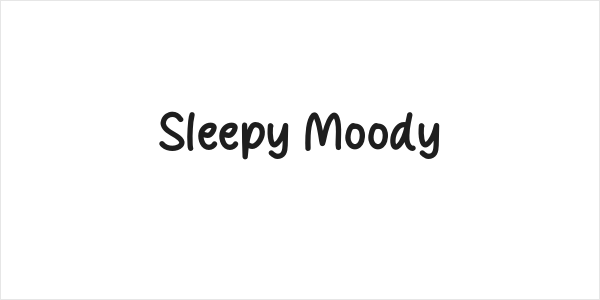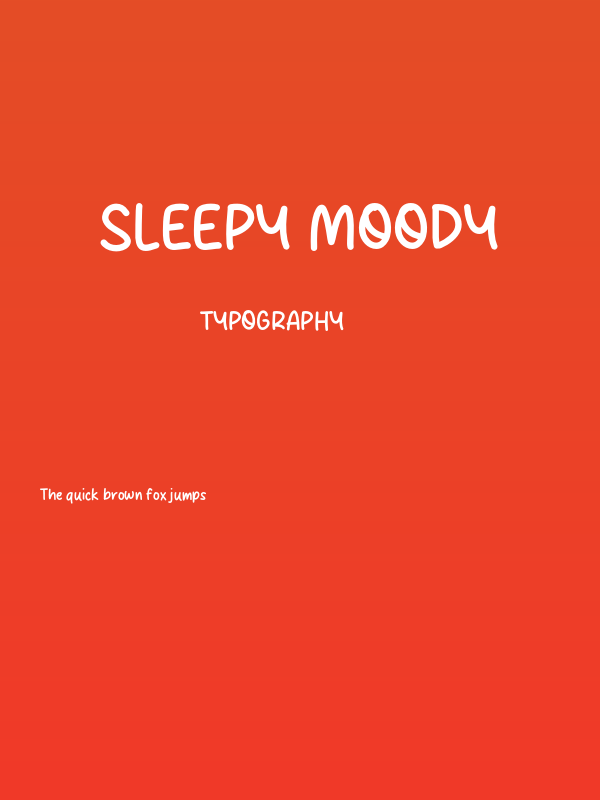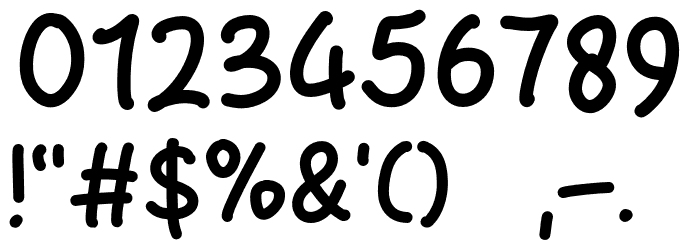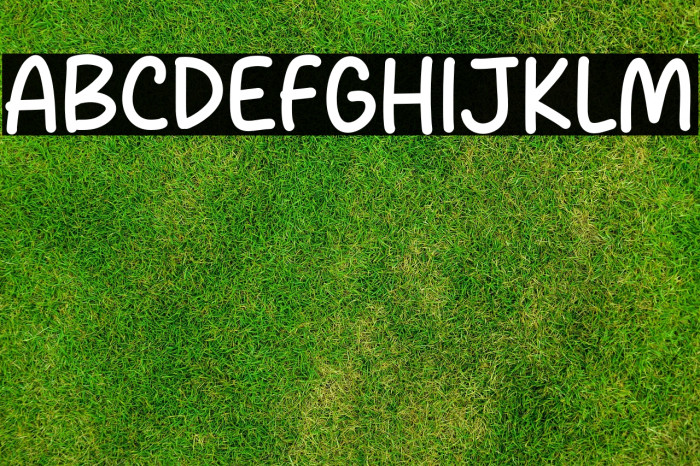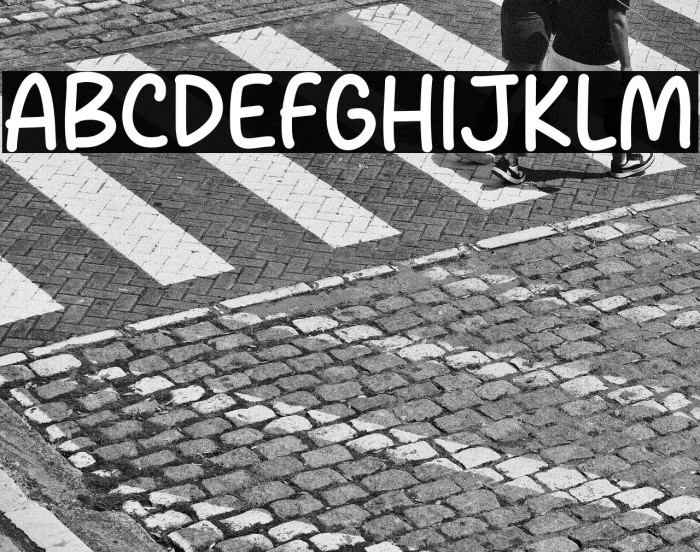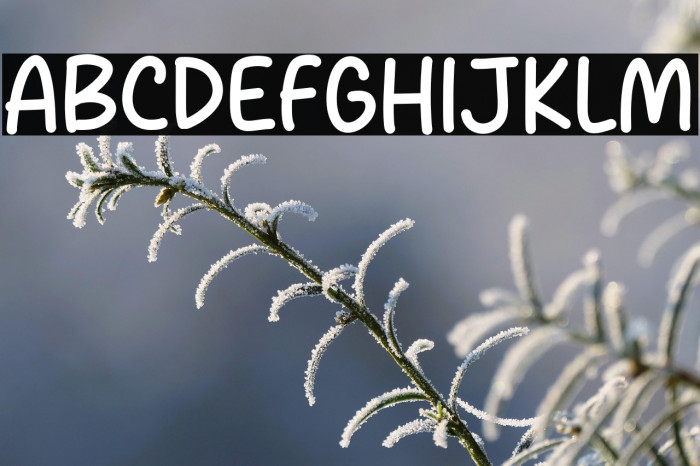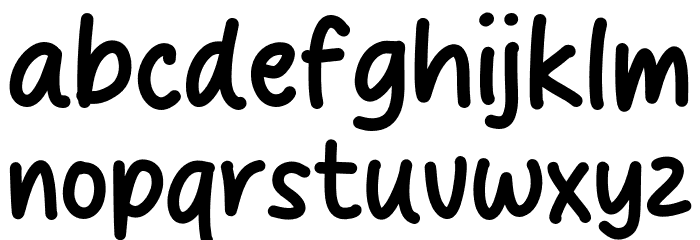
Sleepy Moody Font
Sleepy Moody Description
This playful and whimsical font exudes a casual and friendly vibe, characterized by its rounded and slightly irregular letterforms. The strokes are consistent in width, giving it a uniform appearance while maintaining a hand-drawn feel. The uppercase and lowercase letters are well-balanced, with a slight tilt that adds to its informal charm. The numerals and special characters are crafted to match the overall style, ensuring cohesion across all elements. This font is perfect for projects that require a touch of personality and warmth, making it ideal for creative and informal applications.
| Proposed Projects | Ideal for children's books, greeting cards, casual branding, and playful social media graphics. |